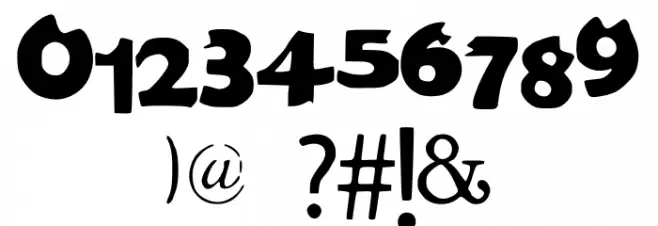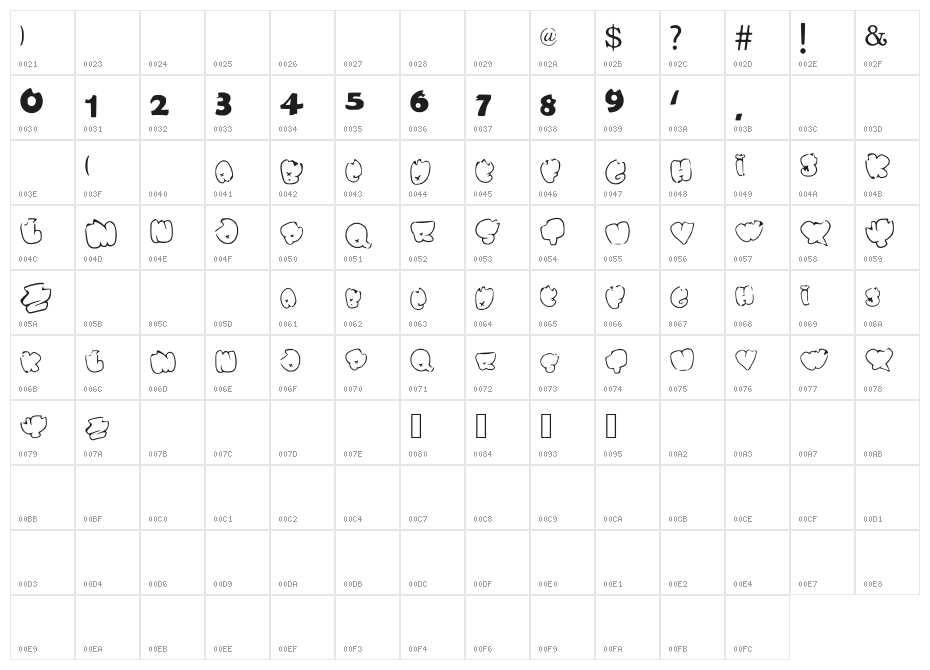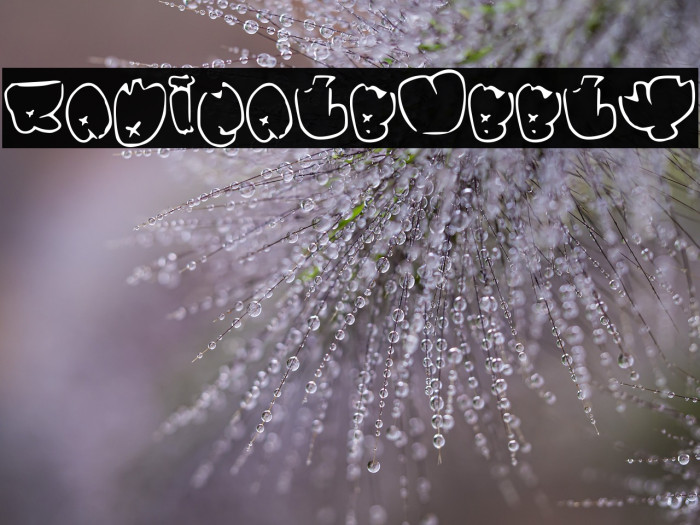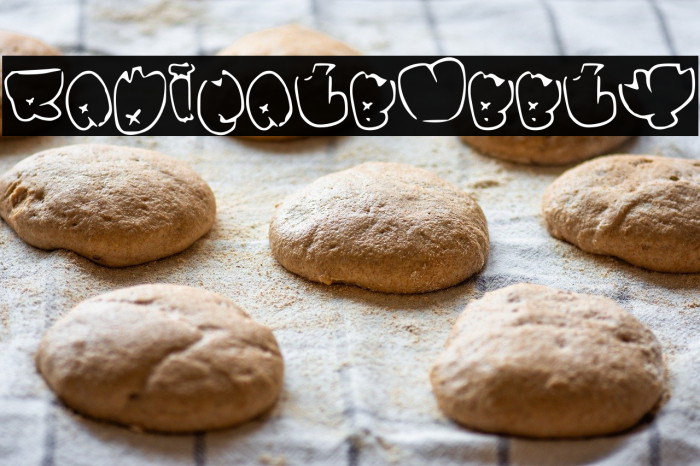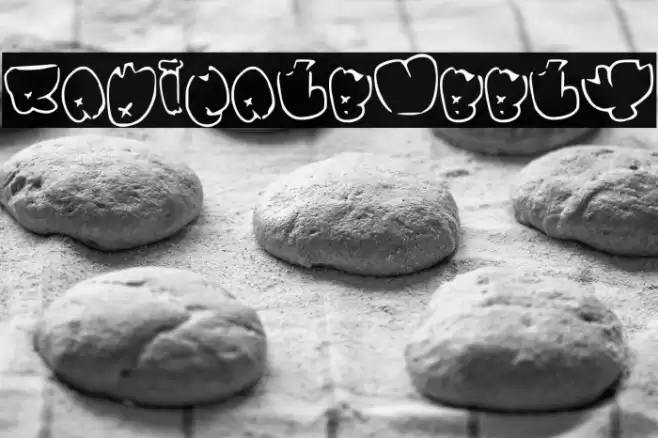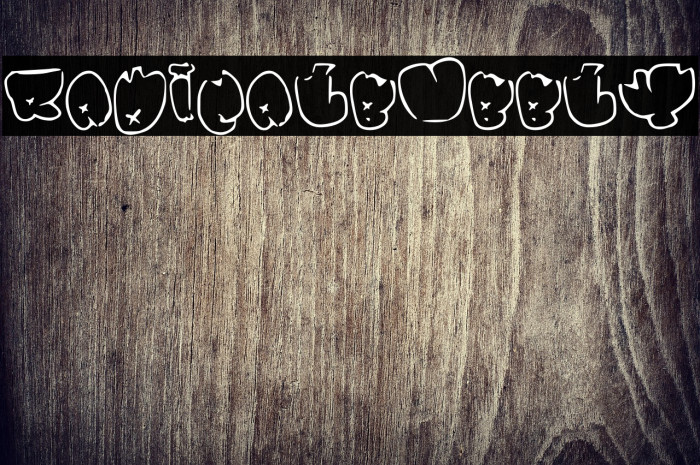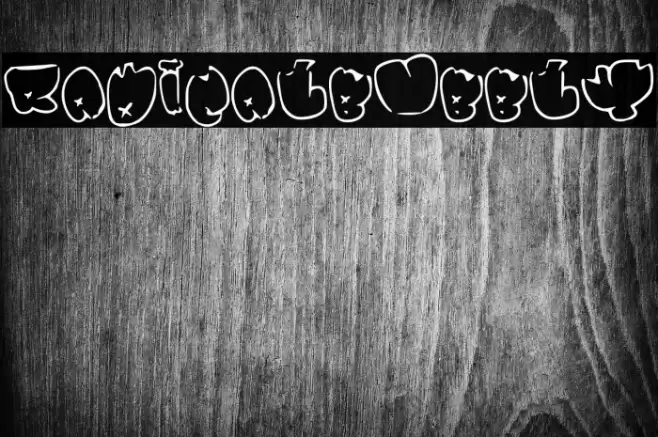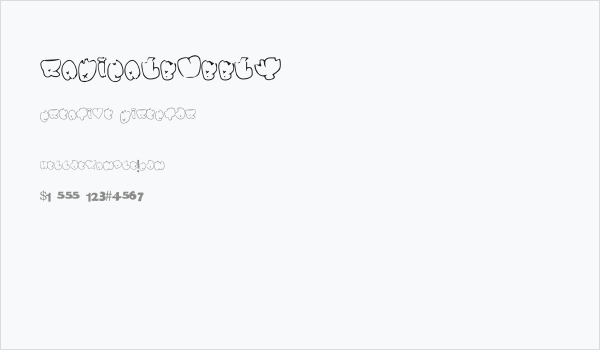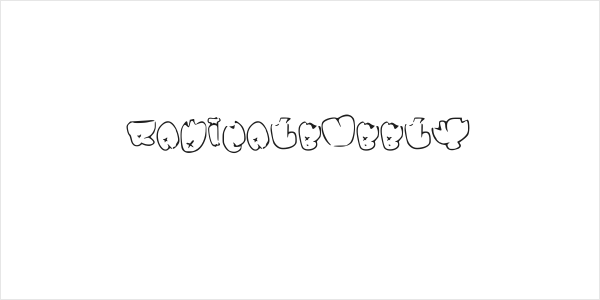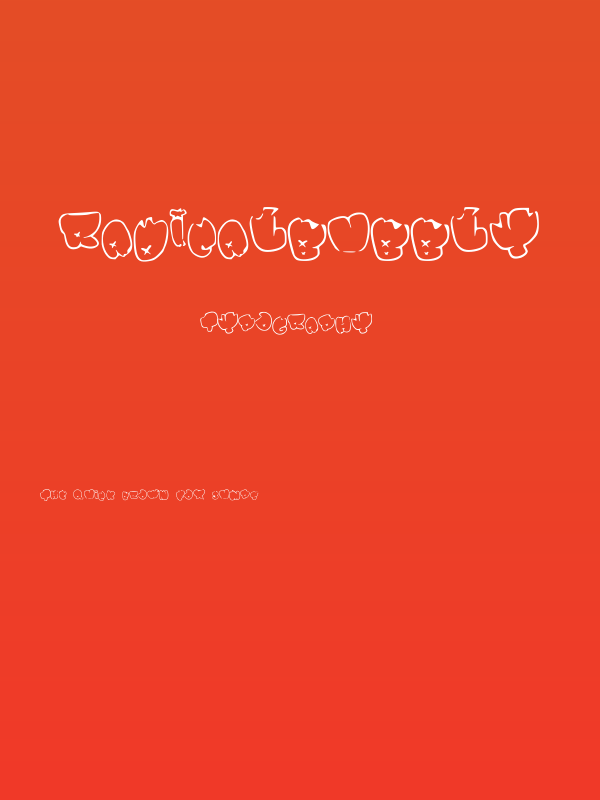
radicalbubbly Font
radicalbubbly Description
This playful and energetic font features a bubbly, cartoonish style with exaggerated, rounded forms. Each character is outlined with a bold, black stroke, giving it a graffiti-like appearance. The letters are filled with a white space that adds to the playful and dynamic feel. The font includes both uppercase and lowercase letters, numbers, and a variety of special characters. Its whimsical and informal design makes it ideal for projects that require a fun and lively touch.
| Overall Style | Playful, Whimsical, Cartoonish |
| Proposed Projects | Ideal for children's books, comic strips, playful branding, party invitations, and posters. |